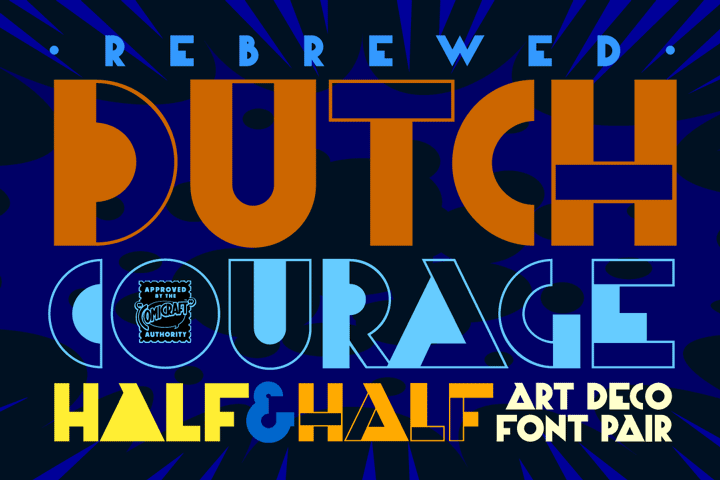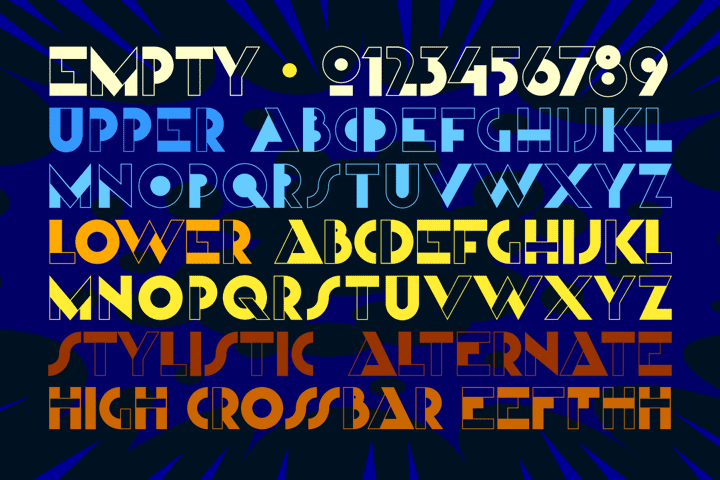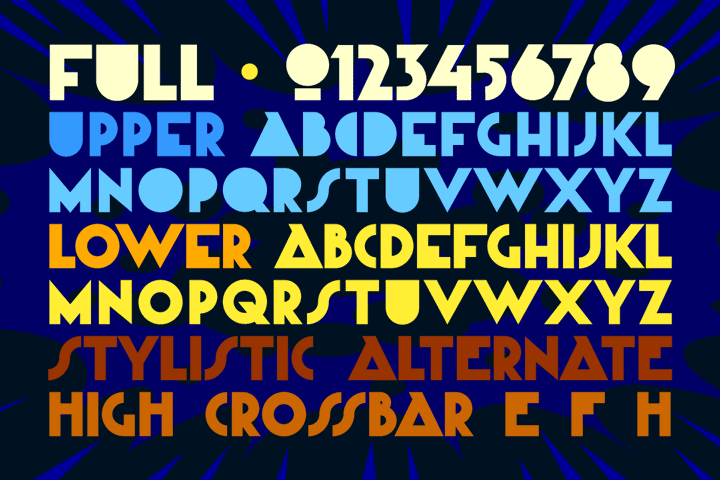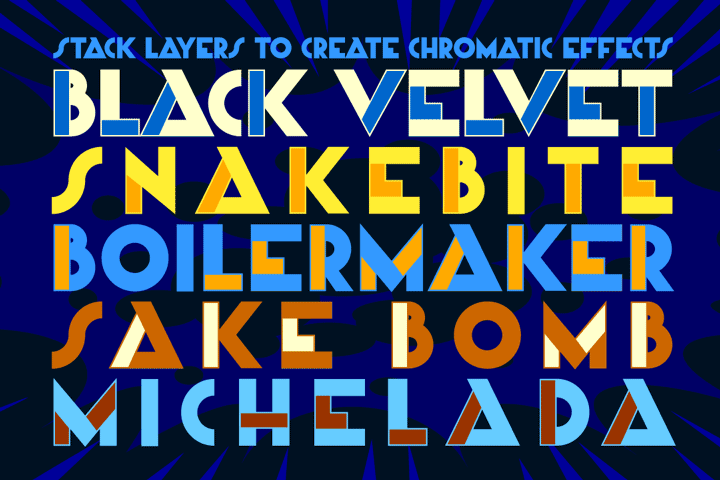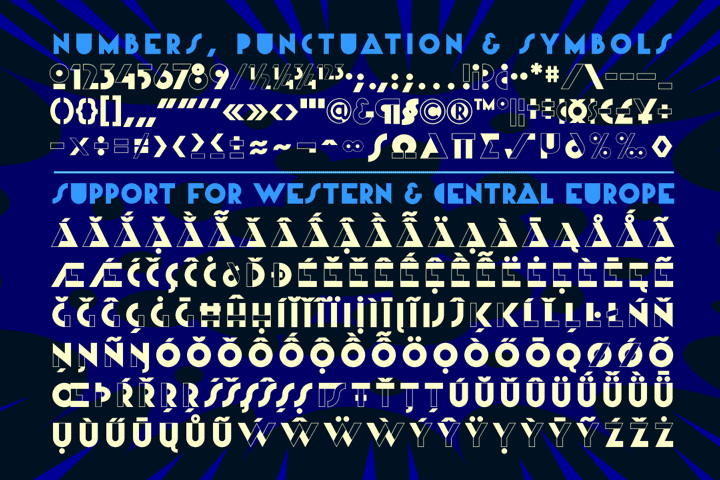
Dutch Courage Half&Half
It’s time for the final round of Dutch Courage! HALF empty or HALF full? That’s the dilemma you’ll face when you choose HALF & HALF from our list of fine brews in your font menu. Is it a solid outline with no fill or is it a field color with boundaries? Is your glass half empty or half full? YOU decide! Either way, this one’s got it all in equal measures!
Two weights with alternate uppercase
Plus: Stylistic alternates